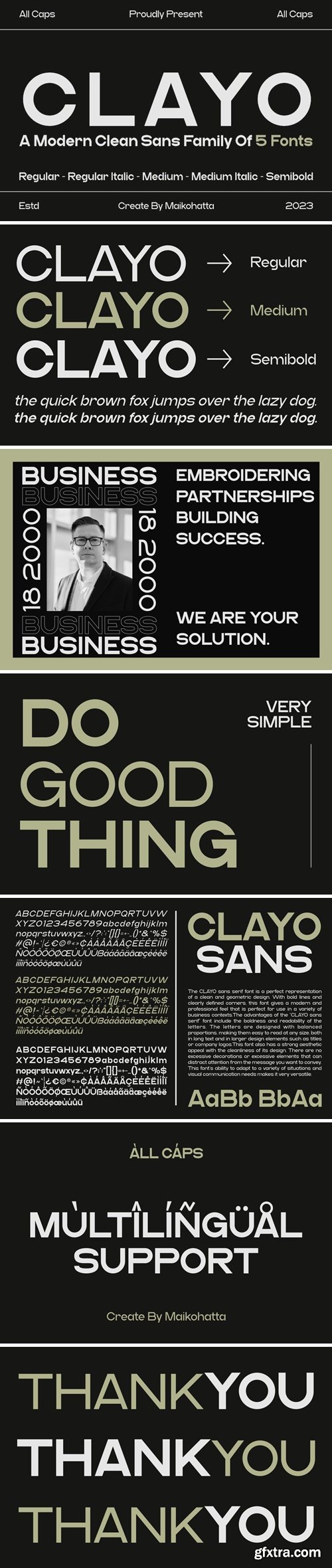
克莱亚 - 现代简约Sans家族字体
A sans-serif font family available in various styles is a highly versatile choice for graphic design and clean, modern text displays. This sans-serif font family offers flexibility in graphic design, and its various styles allow you to customize the appearance of text to suit your project's needs. With different combinations of regular, italic, and varying levels of boldness, you can create an appealing and easily readable text display in various contexts.